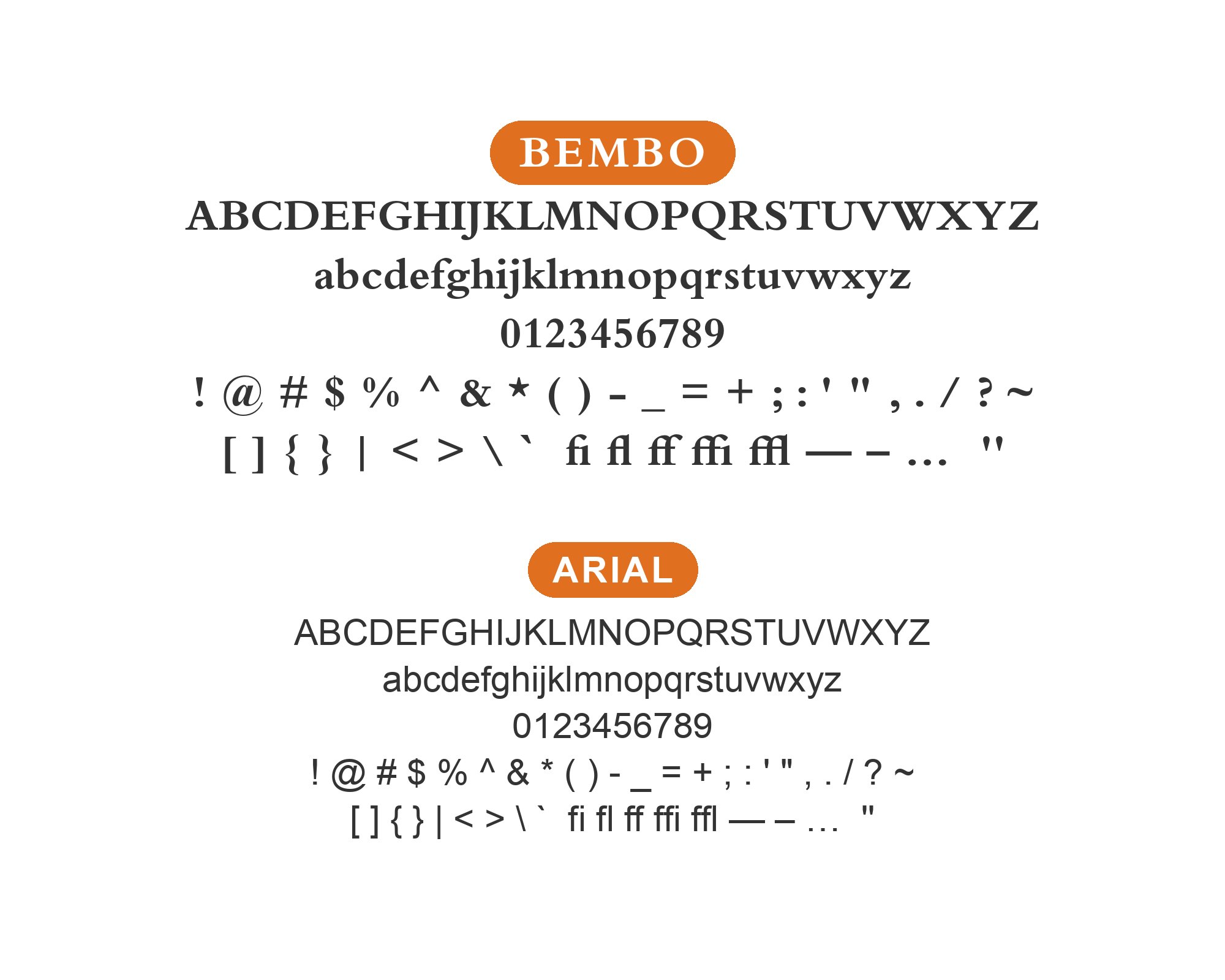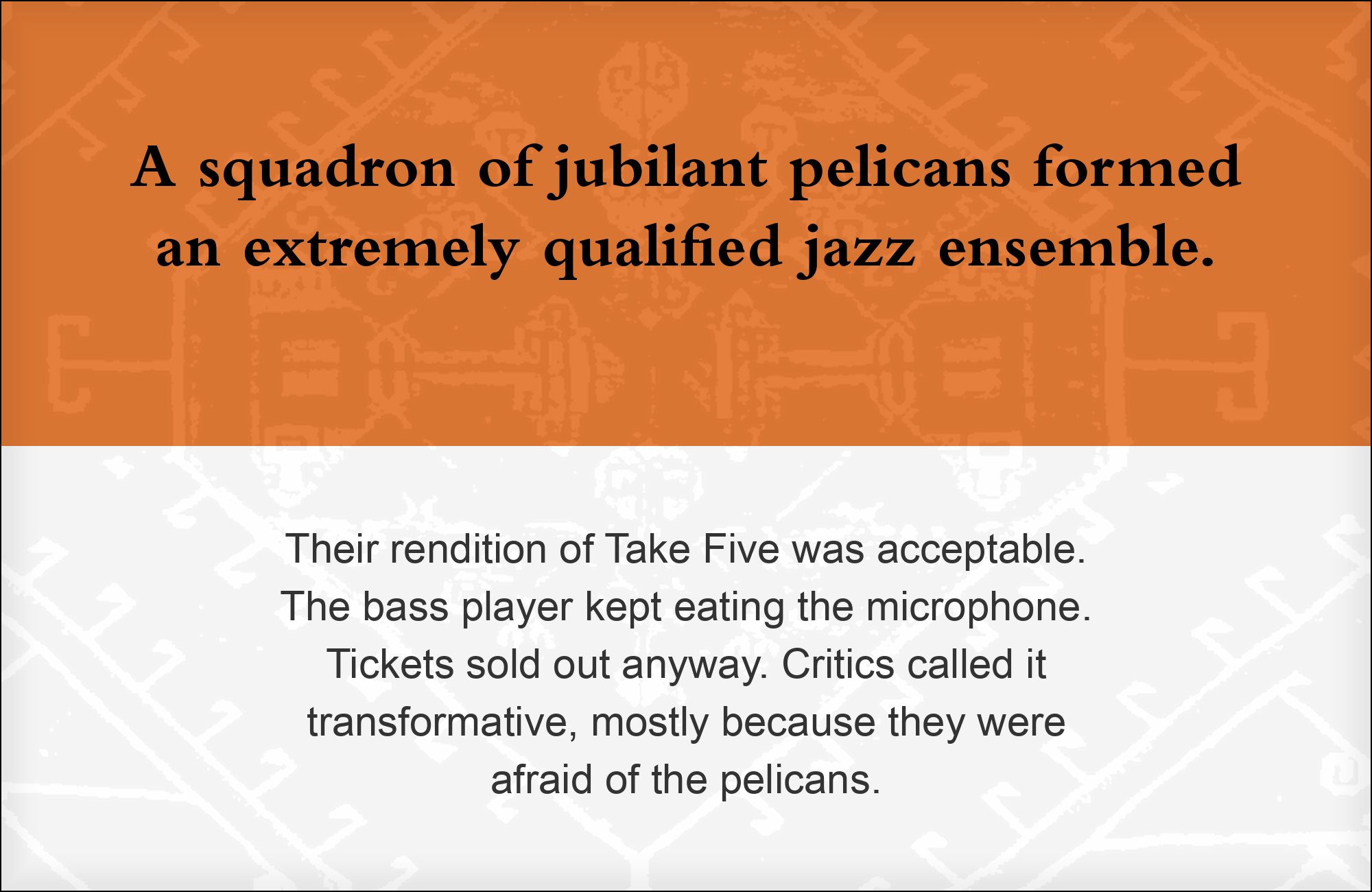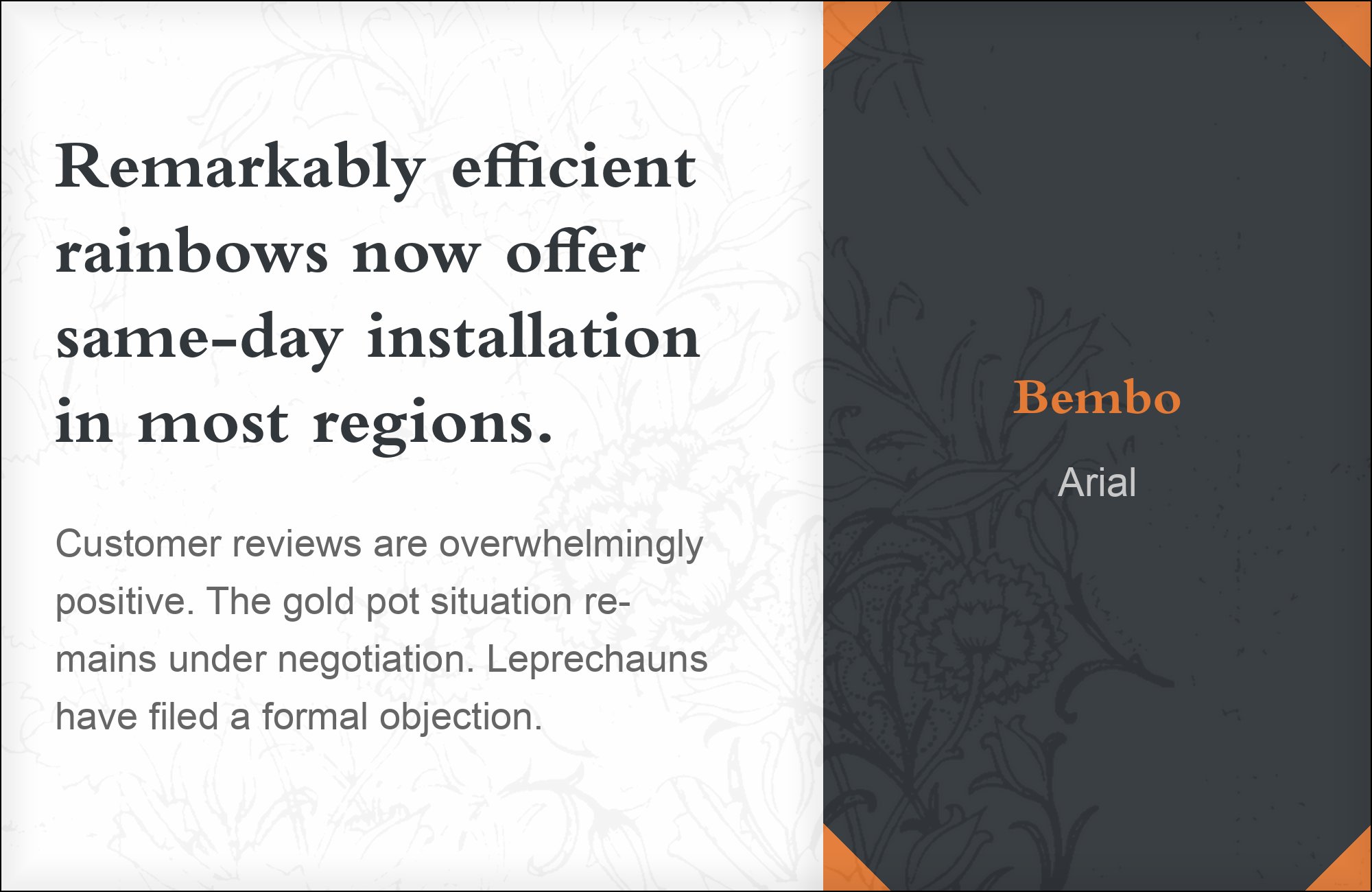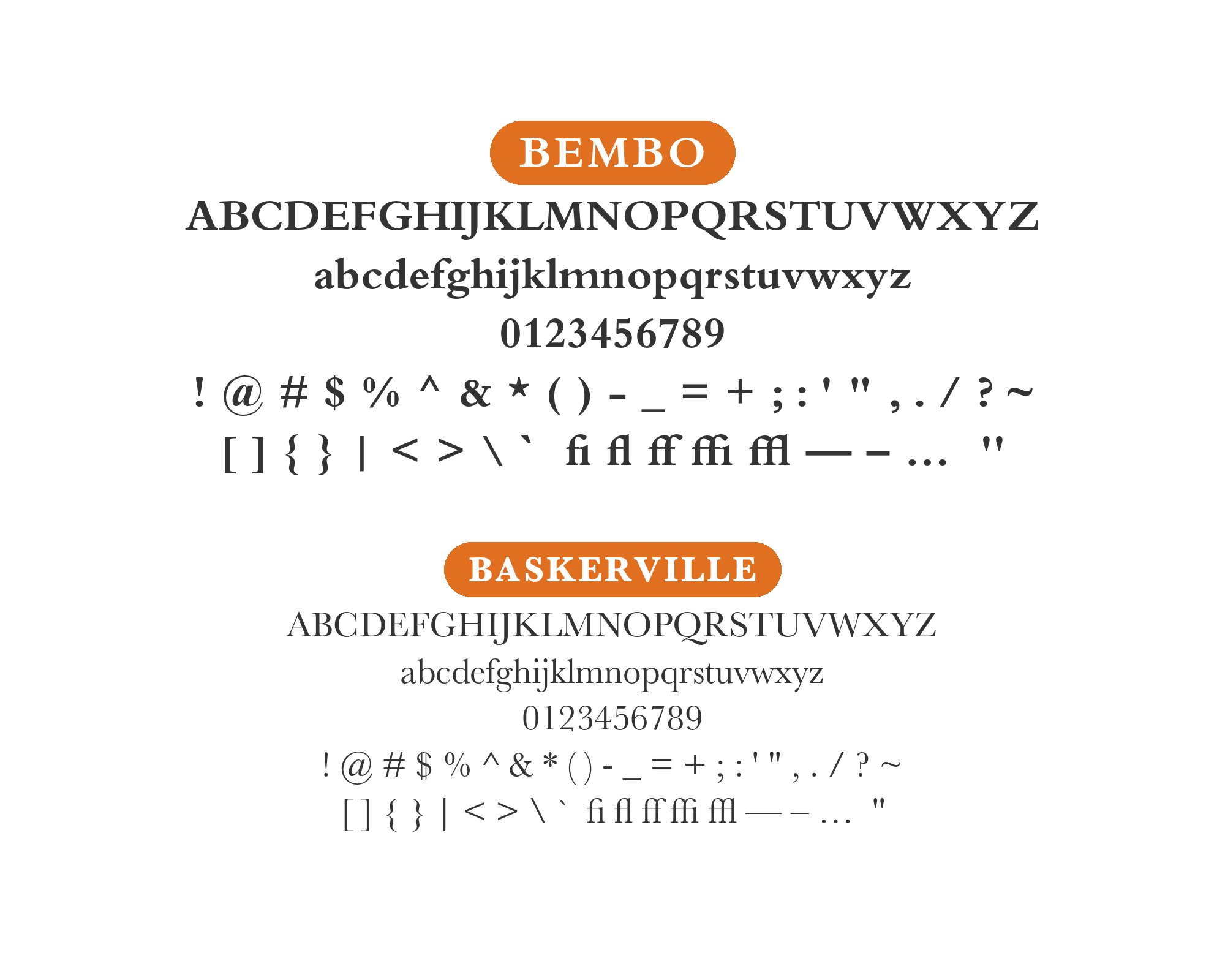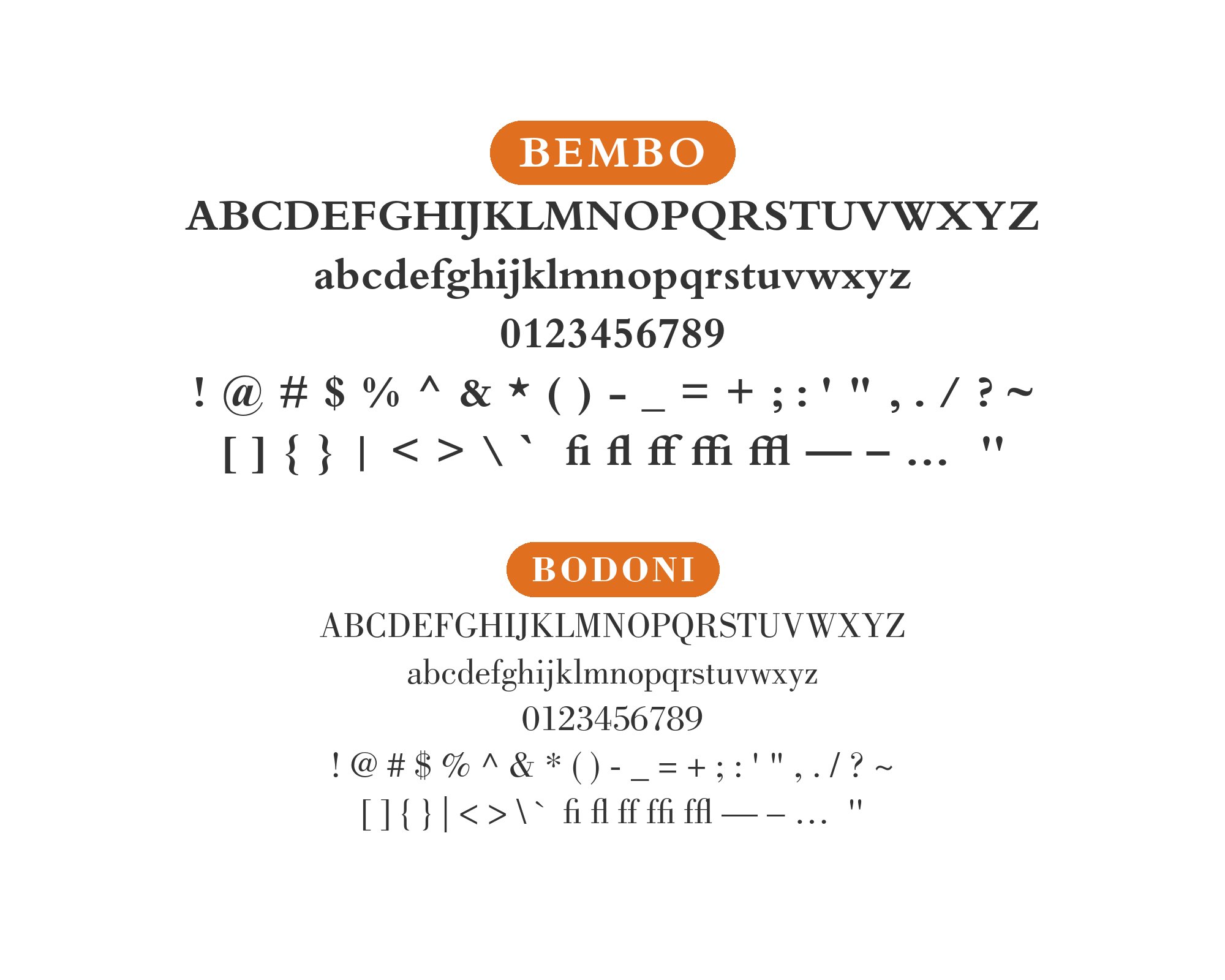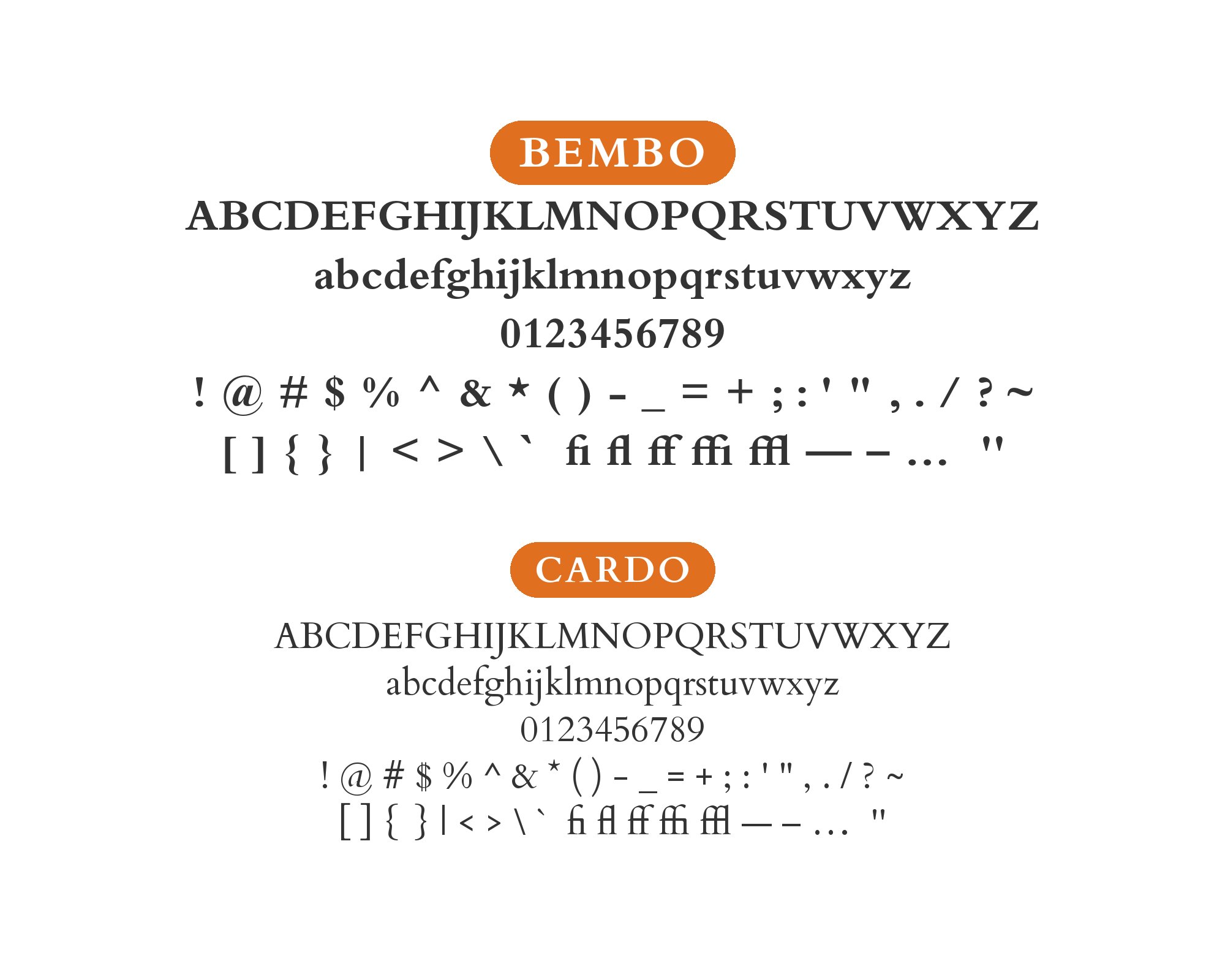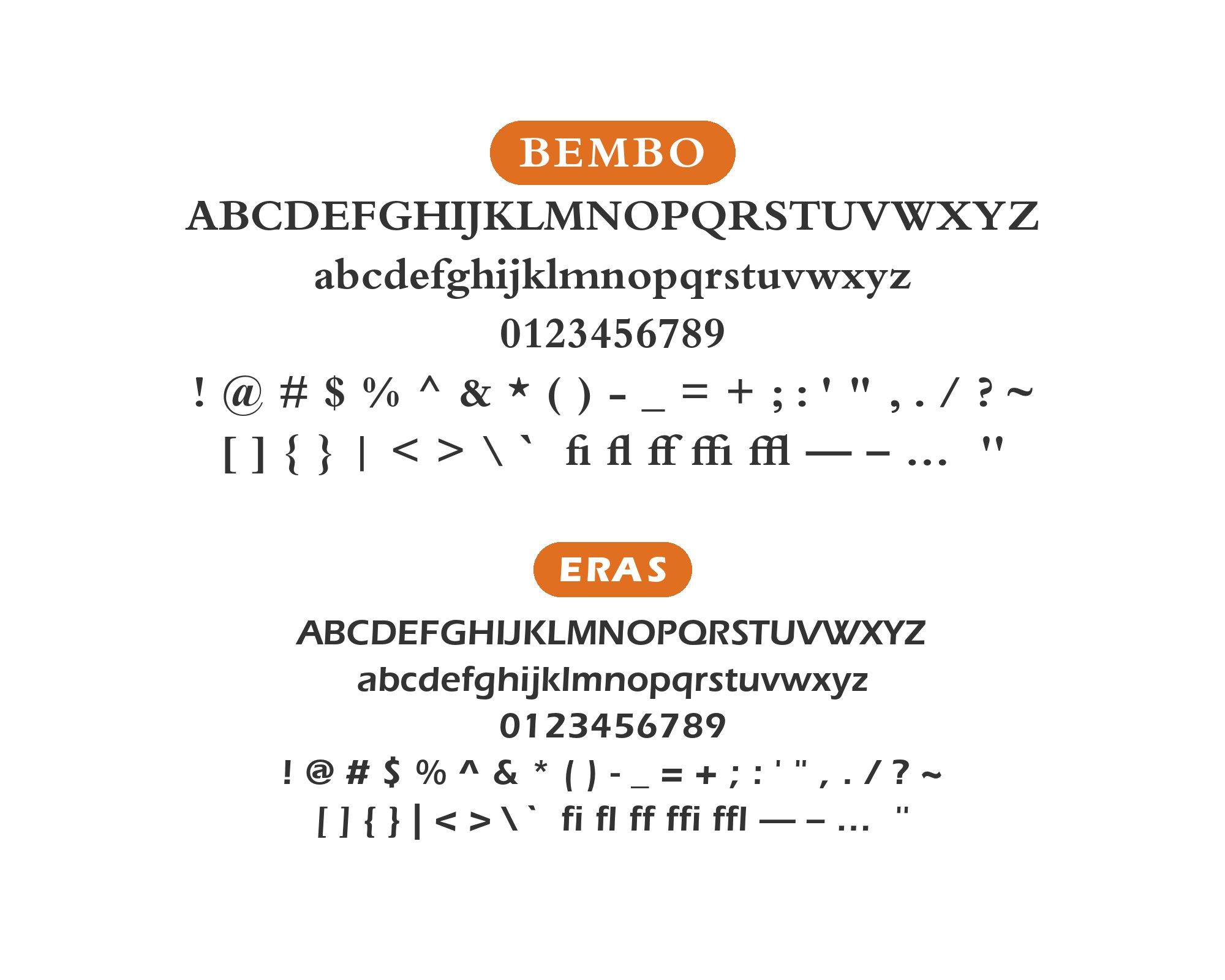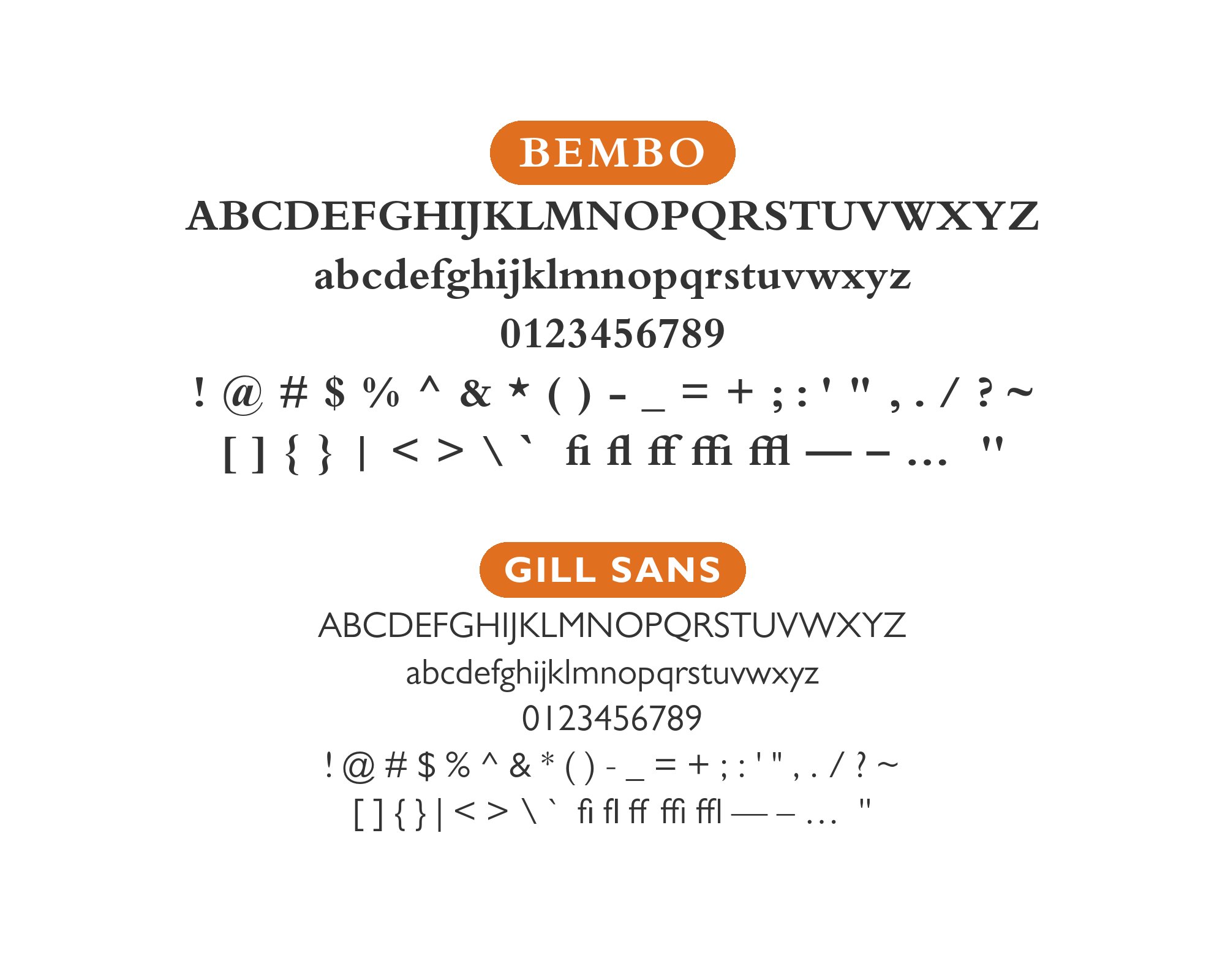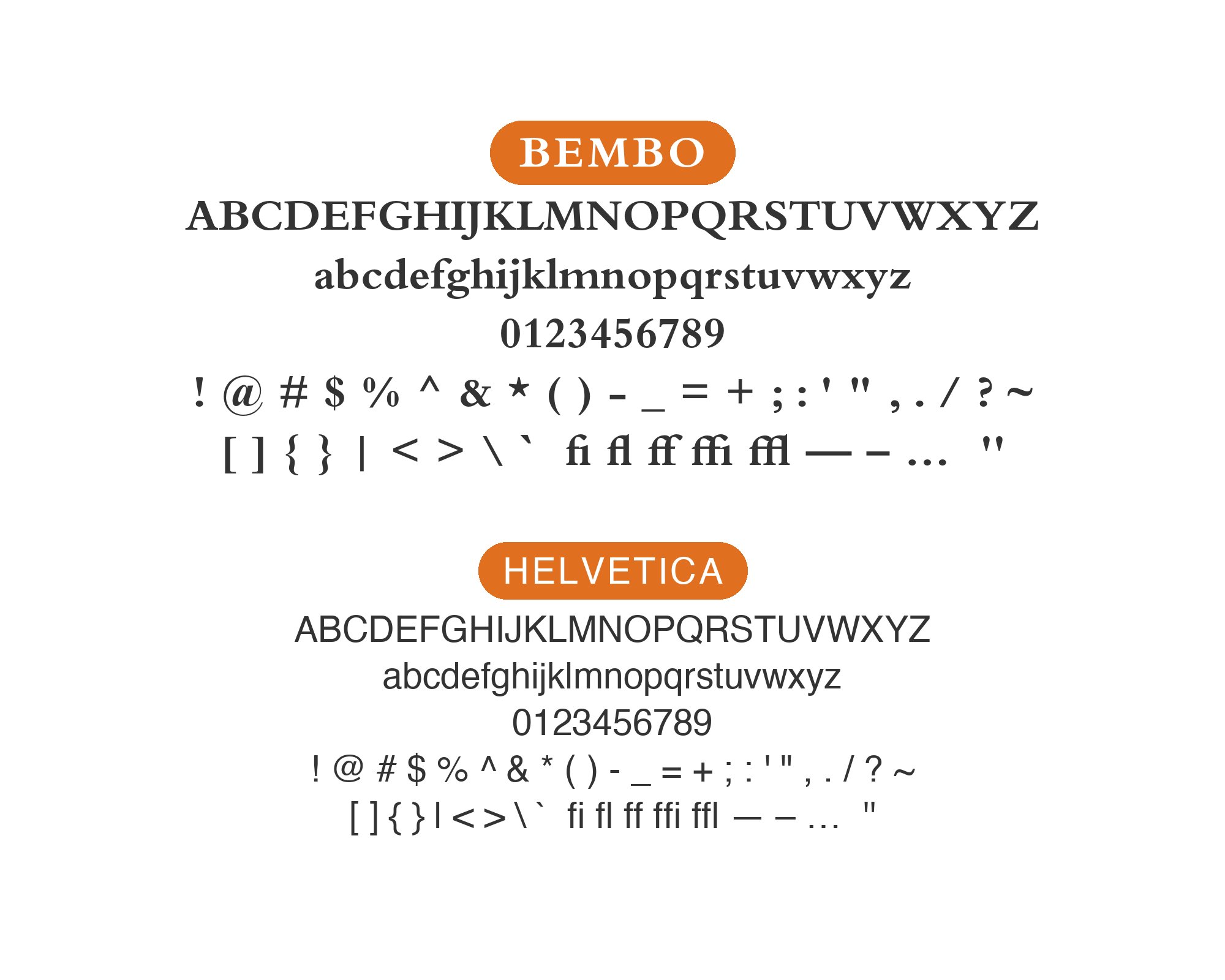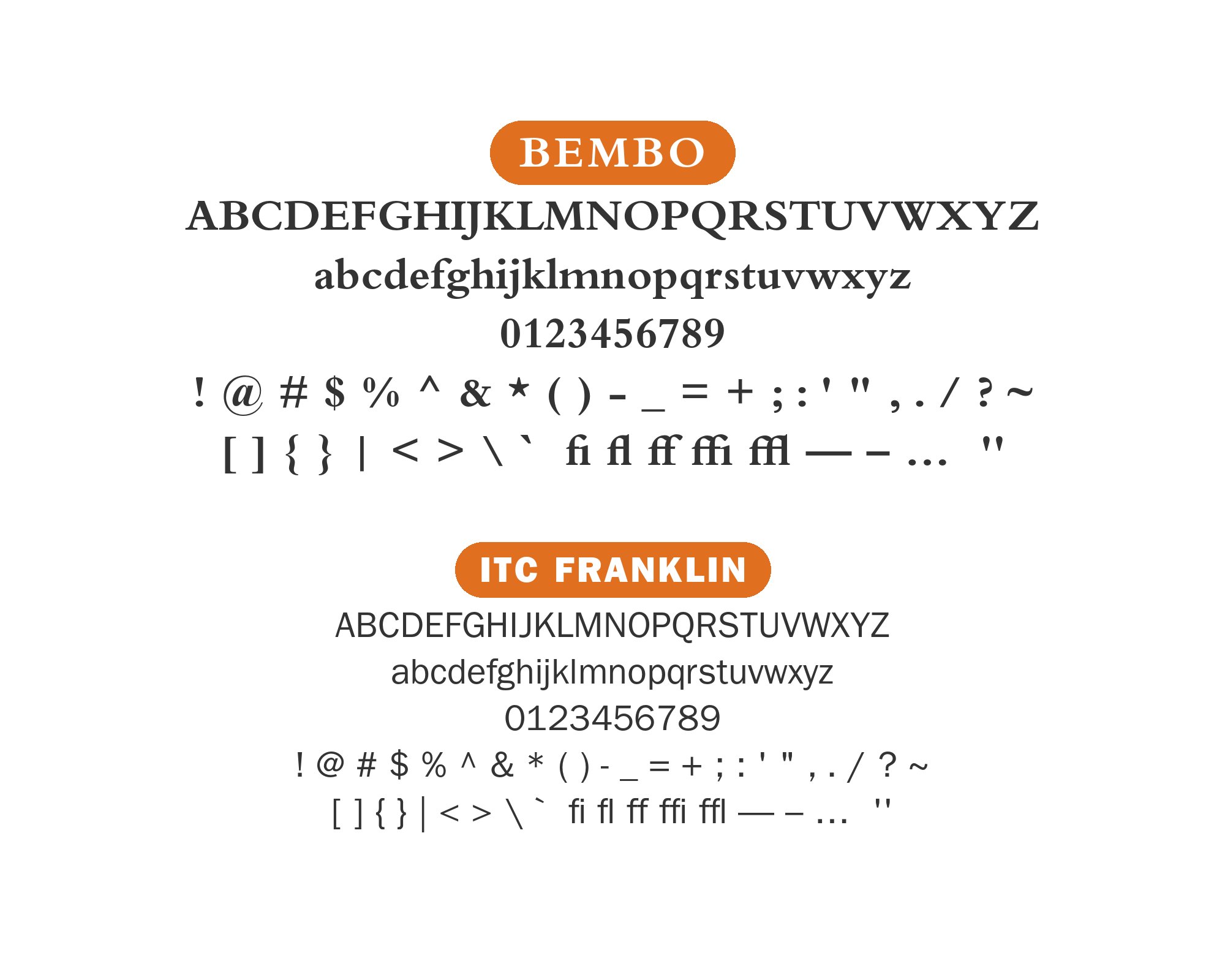
Bembo pairs great with Gill Sans, Cardo and Futura. All 15 pairings are shown below in real rendered specimens, with the reason each one works.
What fonts go with Bembo? Few typefaces make the question feel this historically loaded. Bembo is Monotype’s 1929 revival of a roman that Francesco Griffo cut in 1495 for Aldus Manutius’s printing of Cardinal Pietro Bembo’s essay “De Aetna,” which means any pairing decision here is really a decision about how to sit a five-hundred-year-old letterform next to something newer.
Stanley Morison directed the revival at Monotype, working from printed copies of Aldus’s 1495 De Aetna to recover a roman diluted by centuries of lesser copies. The result keeps Griffo’s calligraphic, pen-drawn curves and a low stroke contrast that reads as warm rather than mechanical, with ascenders drawn noticeably taller than the capitals — a Renaissance legibility trick that still helps Bembo hold up at text sizes. Bembo has almost no presence in the web-design pairing tools built for contemporary typefaces; it belongs to the print and book-design world instead, where Fonts In Use documents it across forty-plus projects spanning 1931 to 2024.
That split shapes every pairing here. One path is shared lineage: fonts like Cardo and Gill Sans share Bembo’s Aldine tradition or Monotype design program, so setting them beside it continues a conversation rather than starting one. The other is deliberate contrast: a geometric sans like Futura, a bold grotesque like ITC Franklin, or a razor-edged Didone like Bodoni sits far enough from Bembo’s warmth that headline and body separate at a glance. Here are 15 fonts that pair well with Bembo, from closest relatives to sharpest contrasts.
1. Gill Sans
Eric Gill drew Gill Sans in 1928 for Monotype, the same years and design program that produced Bembo’s revival under Stanley Morison. That shared origin matters: Gill Sans is built on classical letterform proportions rather than mechanical geometry, so its humanist skeleton keeps enough of Bembo’s calligraphic warmth that heading type feels related to the body text, not imported. Fonts In Use documents the two set together in real print projects, and book designer Stephen Tiano independently classifies Bembo with Gill Sans as a standard “old-style serif plus humanist sans” combination — two sources, one pairing.
David J. Perry designed Cardo as a free serif for classicists, biblical scholars, medievalists and linguists, and its old-style proportions draw directly on Bembo’s own source: Francesco Griffo’s 1495 roman for Aldus Manutius. That is not a coincidental resemblance; the two share real ancestry. Cardo makes a fitting companion for footnotes, critical apparatus, or a quiet secondary display role beside Bembo’s body text, since its Renaissance structure never argues with the primary face. It is free on Google Fonts, the easiest historically grounded pairing here to actually use.
3. Futura
Paul Renner built Futura in 1927 from pure geometry — circles, triangles, mechanical strokes — which places it at the opposite pole from Bembo’s calligraphic curves. That distance is the point: set as a headline face, Futura reads as a separate structural layer rather than a competitor to Bembo’s body text, so the hierarchy is immediate. The combination has real design pedigree outside the web-pairing-tool circuit — the title design for the 2001 book “IBM and the Holocaust” and the film titling for “Listen Up Philip” (2014) both used it. Adobe Fonts distributes Futura PT, a licensed digitization of Renner’s original.
4. Baskerville
John Baskerville cut his typeface in the 1750s in Birmingham, England, sharpening the transition between thick and thin strokes beyond anything Bembo’s Venetian roman attempts. Both are historic English-tradition book serifs, but from different centuries and stroke logics, so pairing Baskerville with Bembo reads as one “classic literature” register while still separating body from heading by weight and period feel. Fonts In Use documents this exact combination in production, in the 1981 title “Always Now.” Baskerville also ships with macOS by default, which makes it one of the more obtainable serif-on-serif pairings here.
Find Out How5. Merriweather
Sorkin Type designed Merriweather as a screen-tuned serif, giving it a generous x-height and sturdy, low-contrast strokes built to survive small sizes where Bembo’s fine Renaissance detail would blur on a monitor. That makes it practical rather than stylistic: keep Bembo for the printed page or long-form body copy, and bring in Merriweather for on-screen captions, pull quotes, or interface text. Fonts In Use records the two together in real production at Utrecht University. It is free on Google Fonts, so the swap between print-Bembo and screen-Merriweather costs nothing to set up.
6. Avenir Next
Adrian Frutiger drew the original Avenir in 1988, then revised it with Akira Kobayashi as Avenir Next for Linotype — a humanist sans that traces back to the same pen-drawn logic as Bembo’s calligraphy but strips it into a clean geometric-humanist form. That shared root under a modern surface is why headings in Avenir Next gain clarity without abandoning Bembo’s warmth entirely; the two feel like distant relatives rather than opposites. Monotype names this combination one of its “Perfect Pairings” in its own field guide for the Bembo Book digitization, one of the few pairings here with the foundry’s direct endorsement.
7. Fira Sans
Erik Spiekermann, with the Carrois Type Design studio and Mozilla’s Patryk Adamczyk, built Fira Sans for Mozilla and Telefónica in 2013, adapting Spiekermann’s own FF Meta into an open, screen-legible humanist sans. Its warmth is engineered rather than hand-cut, which is why it works beside Bembo: Fira Sans stays plain enough that Bembo’s calligraphic serifs remain the page’s expressive element, while its humanist character keeps it from feeling sterile above quiet Renaissance body text. Free and open-source, it suits editorial sites that need a calm, contemporary headline voice.